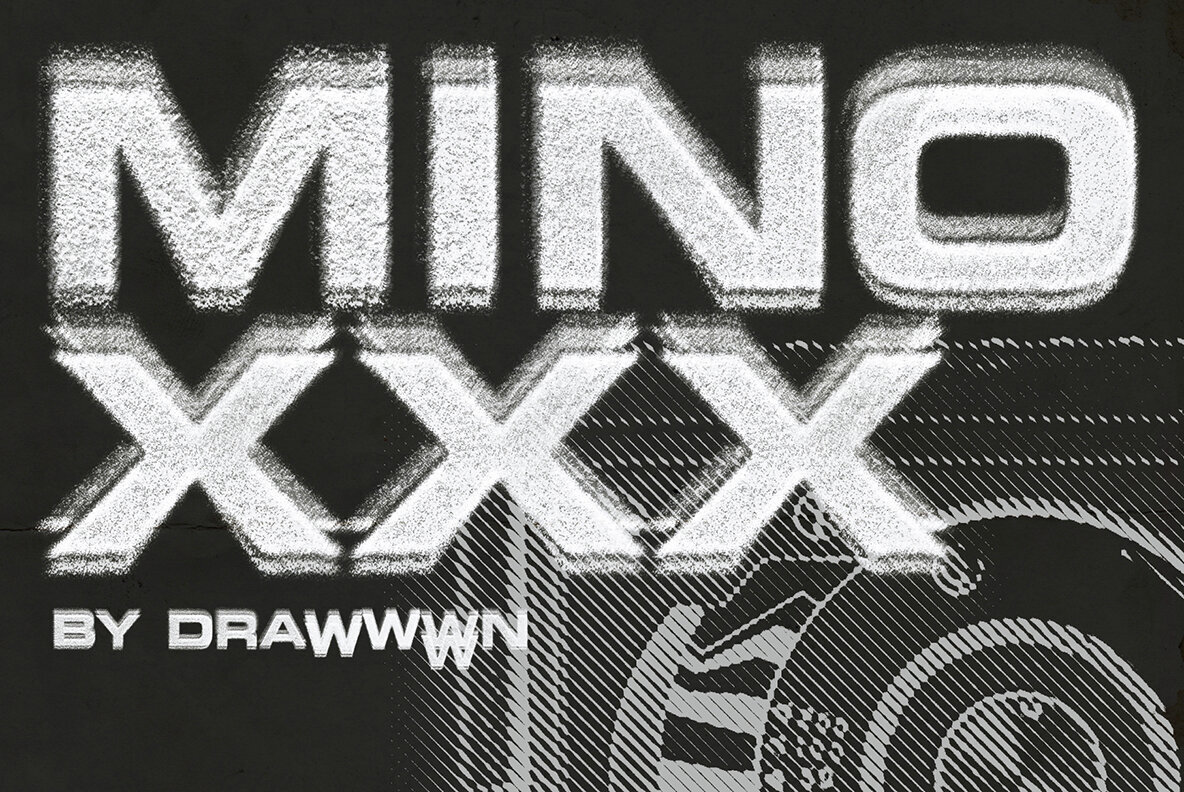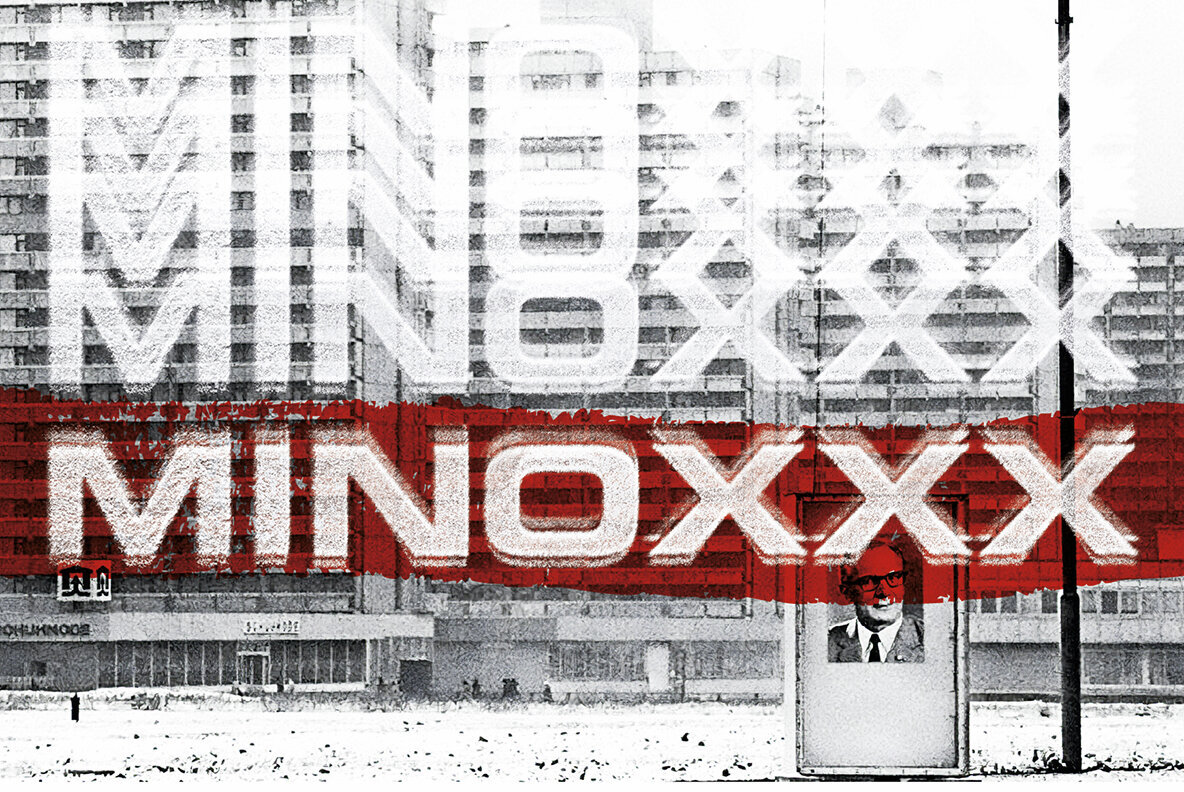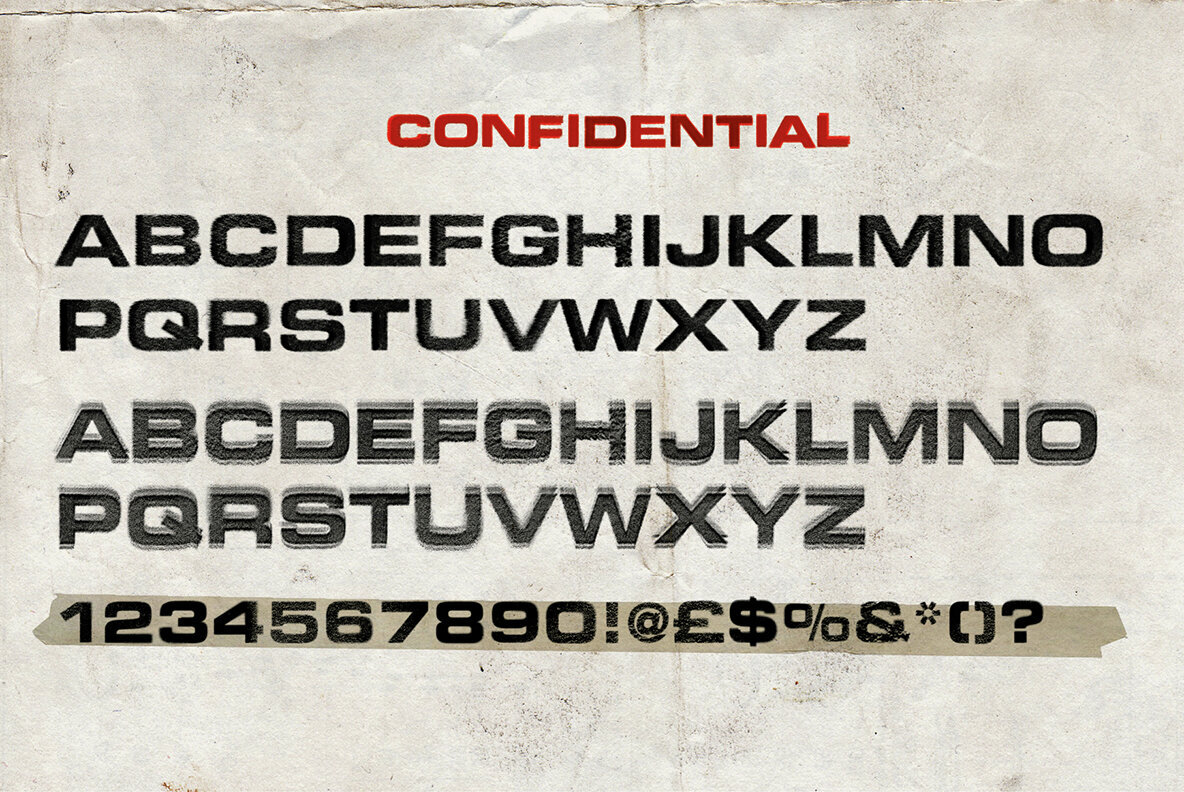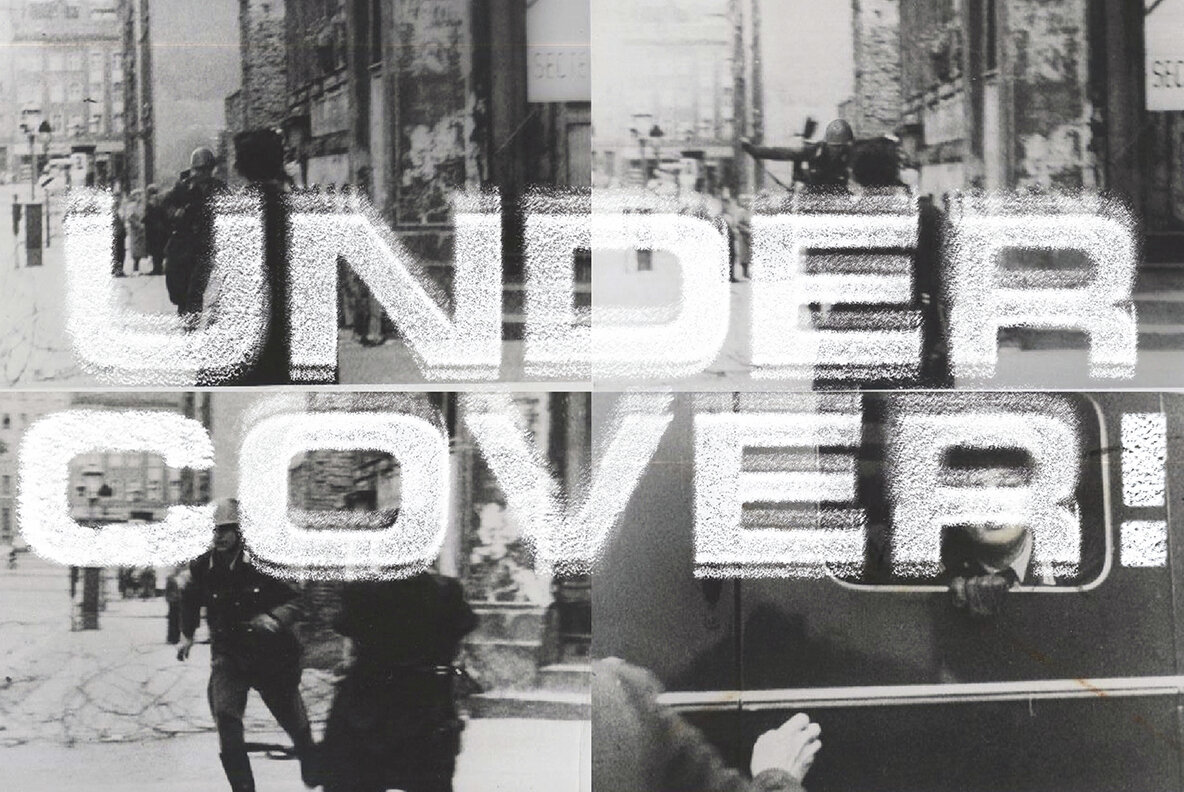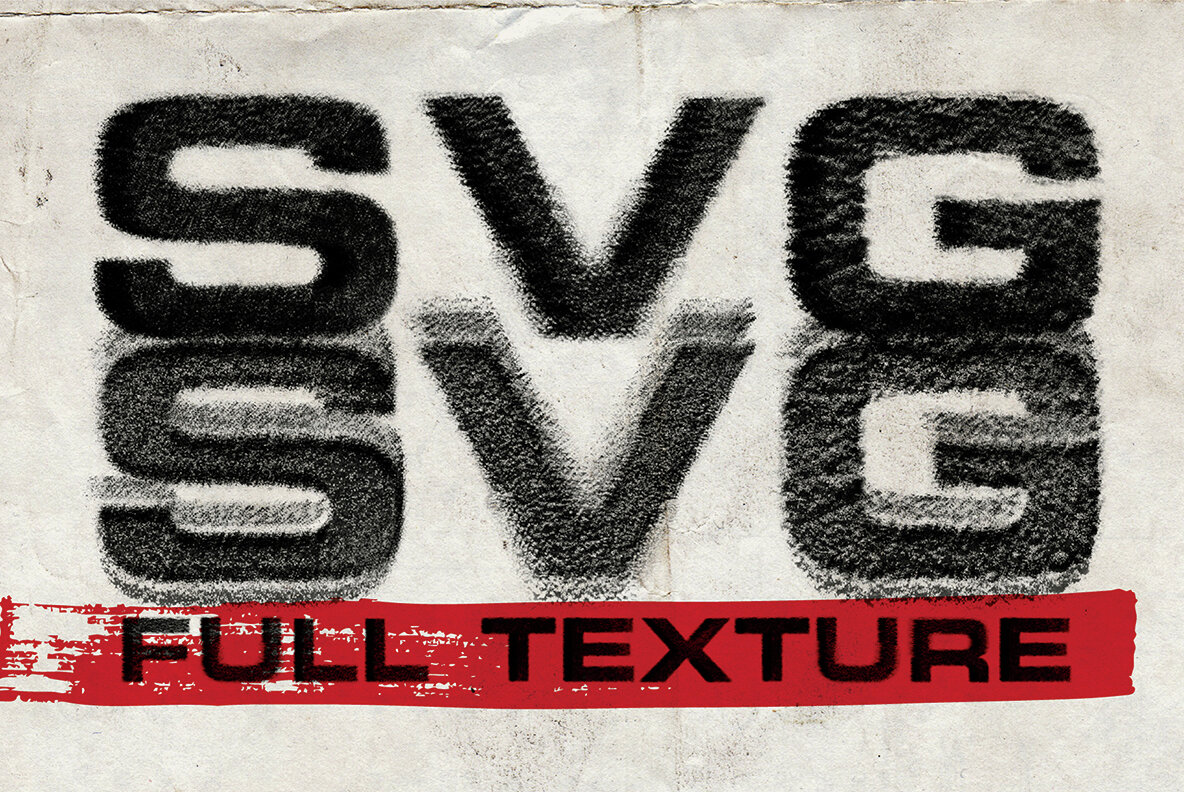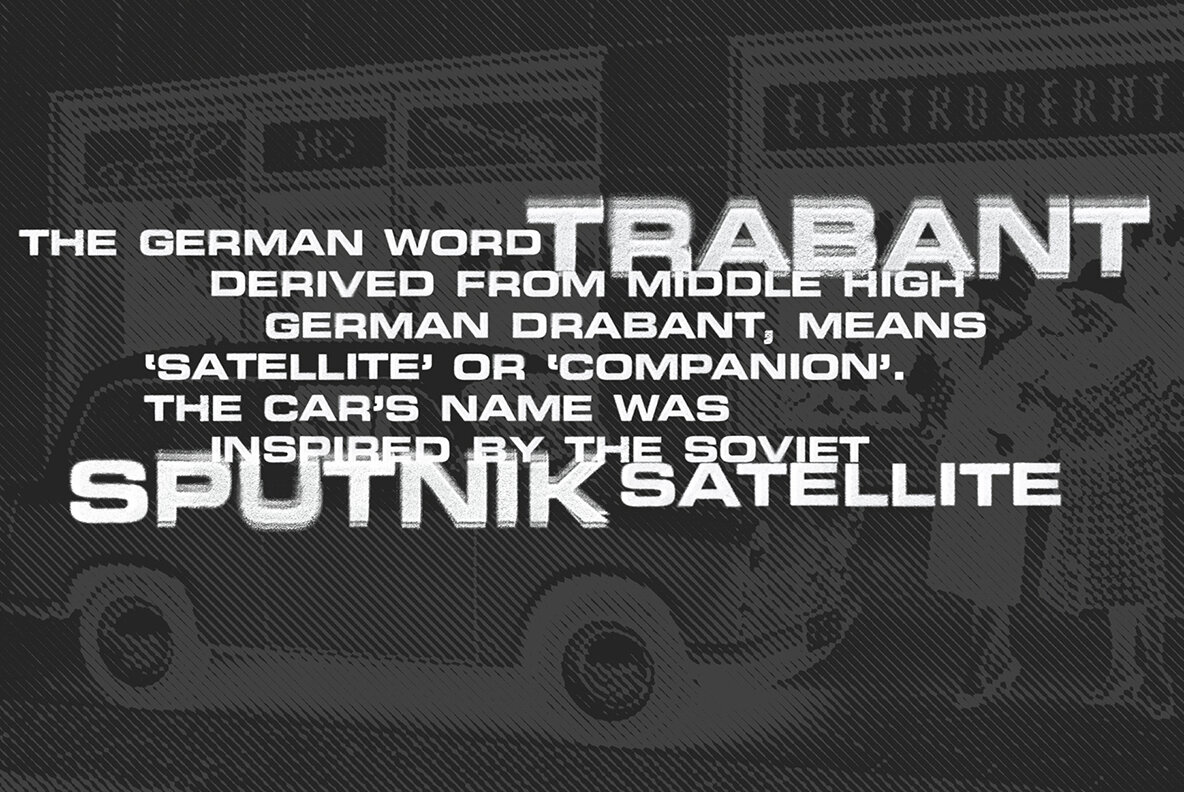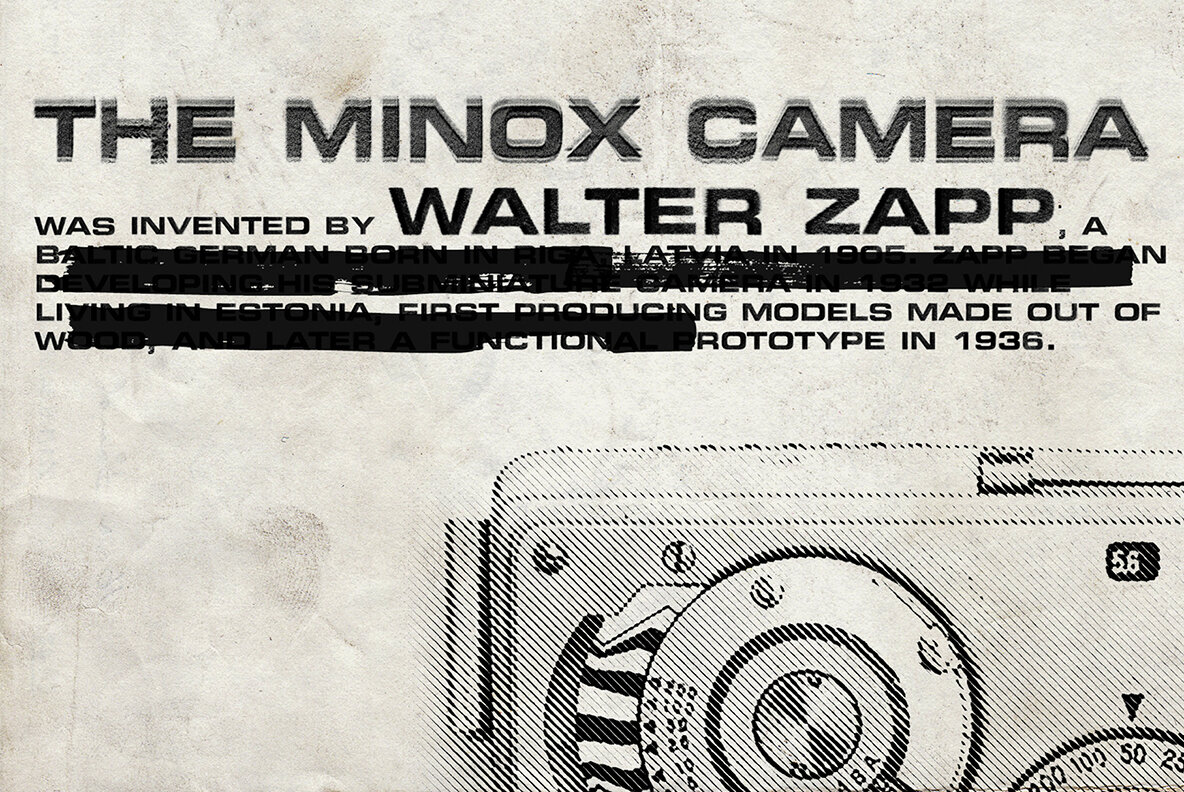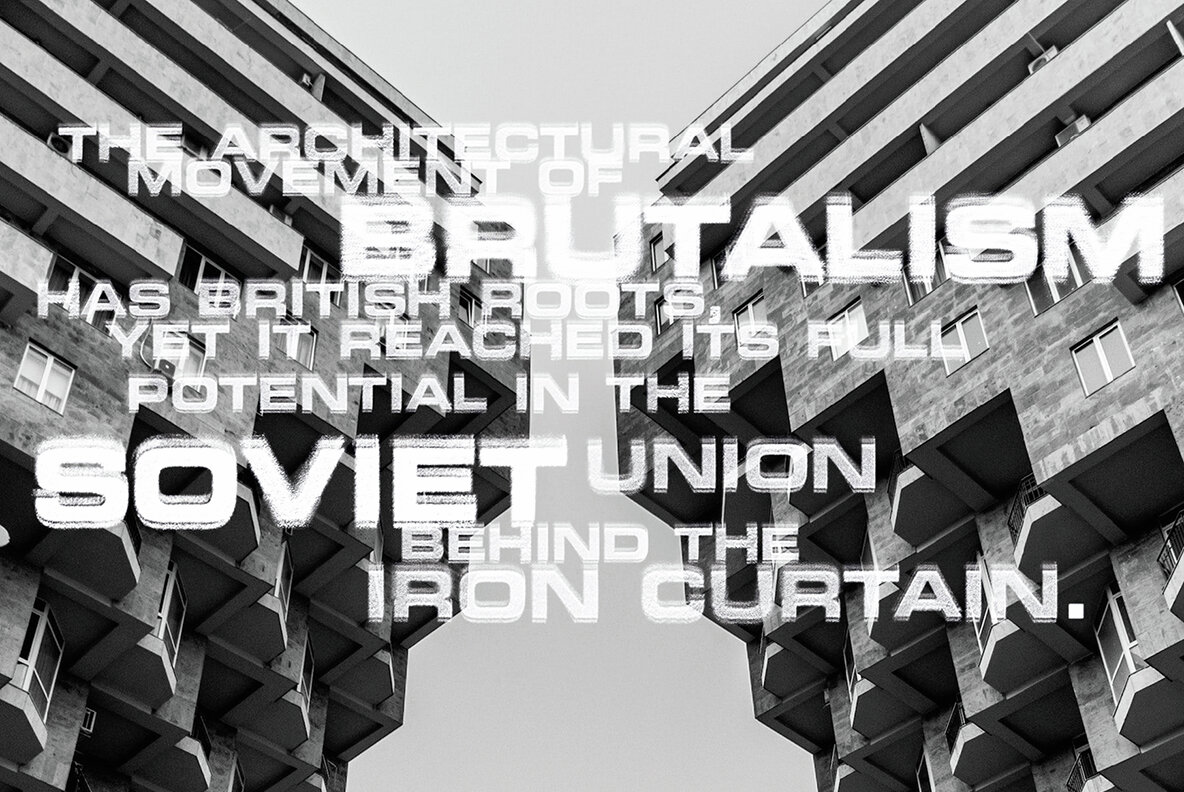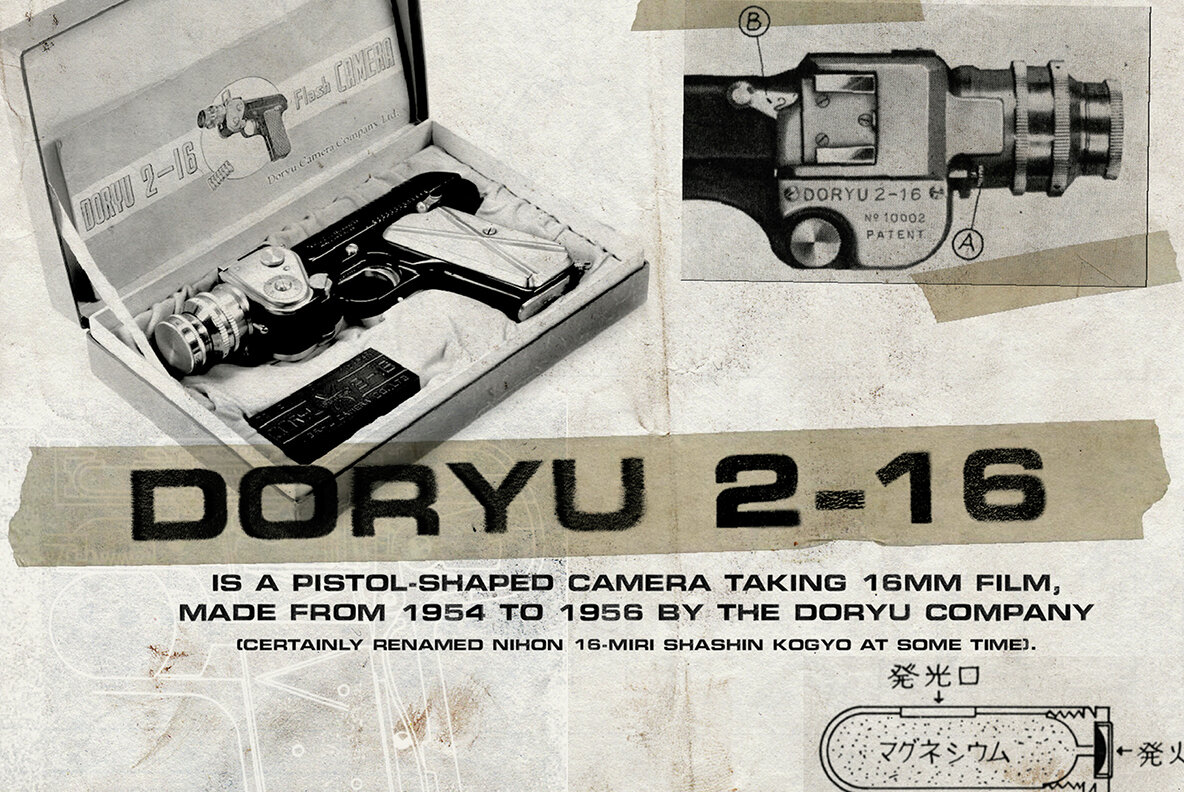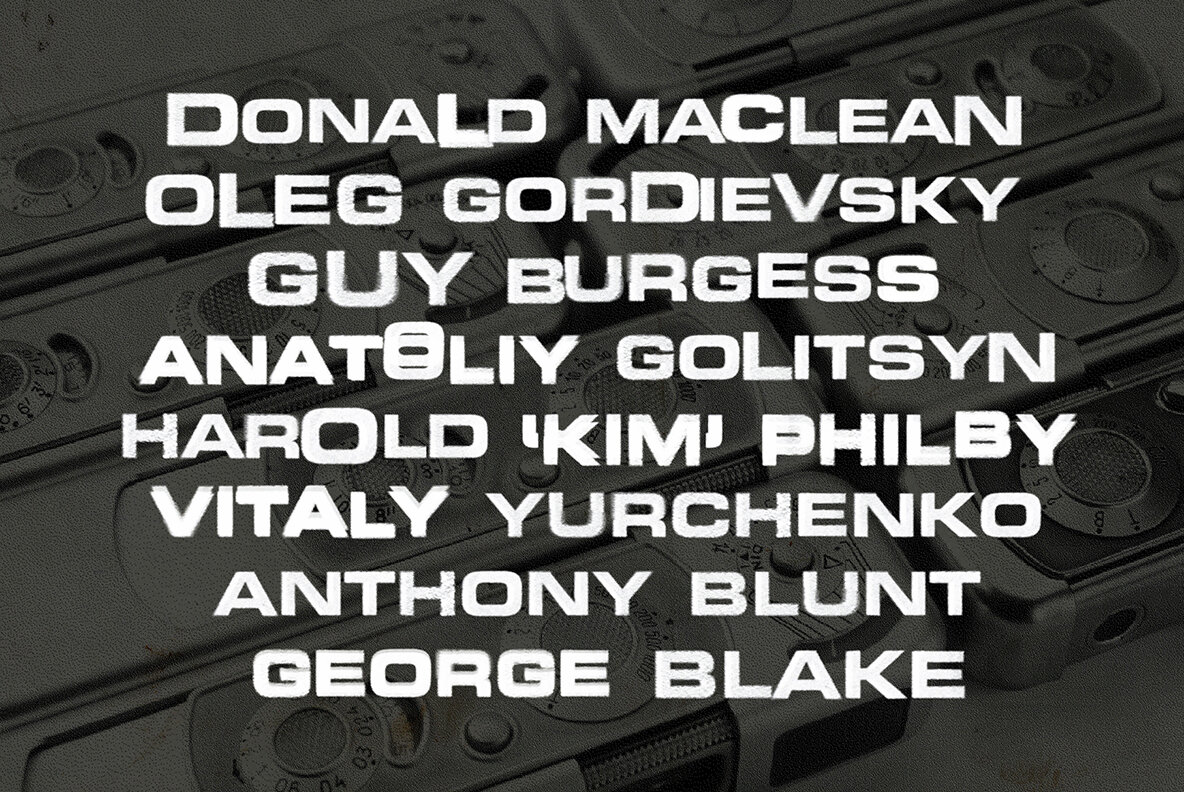
Minoxxx Font
Embark on a journey through the clandestine world of espionage with Minoxxx. Drawing inspiration from the iconic Minox spy camera, this font embodies the mystique and intrigue of 1960s spy culture. Ideal for projects steeped in allure and secrecy, Minoxxx adds a historic twist to contemporary design needs.Minoxxx: A Typeface Inspired by 1960s Espionage
Distinct Features
Infuse your work with an air of mystery using Minoxxx. The typeface brings vintage espionage to life in the digital modern age.